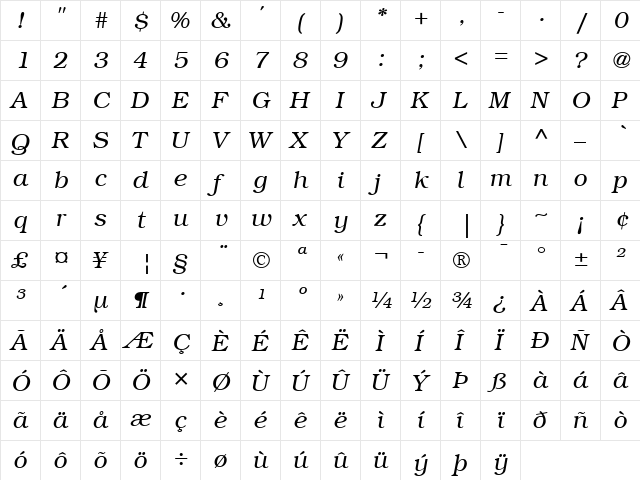
Bookman LT Light Italic
Design Context for Bookman LT Light Typeface
Bookman LT Light is a composed and adaptable typeface that performs quietly and consistently across a wide range of design contexts. The slanted form adds forward momentum and visual energy. Its slender proportions lend an understated elegance to any composition.
Pro Tip: Try Bookman LT Light for annotation and caption copy alongside an upright companion — the contrast in angle creates a dynamic but ordered typographic system.